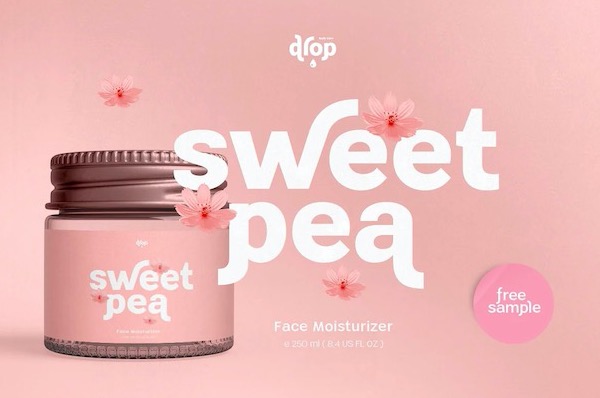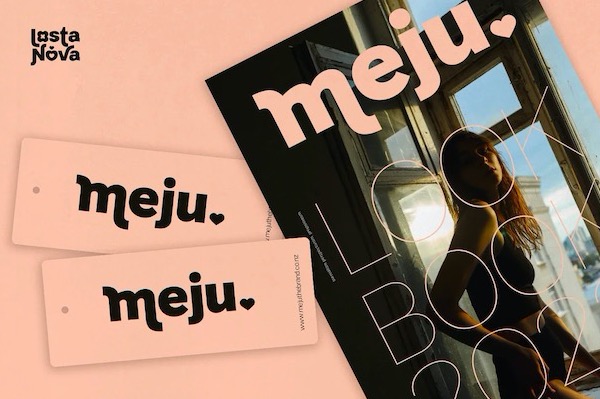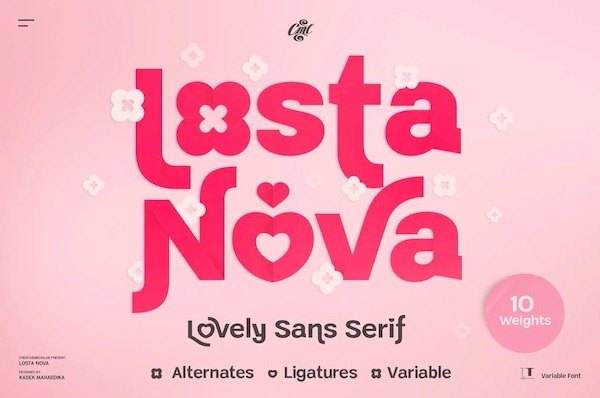
Losta Nova is a modern Sans Serif Font with a fancy look and ten unique weights from hairline to black as well as variable versions. This unique sans serif font was created and shared by Creative Medialab. Works well for branding, fashion, modern, and casual valentine design theme.
Losta Nova Sans Serif Font